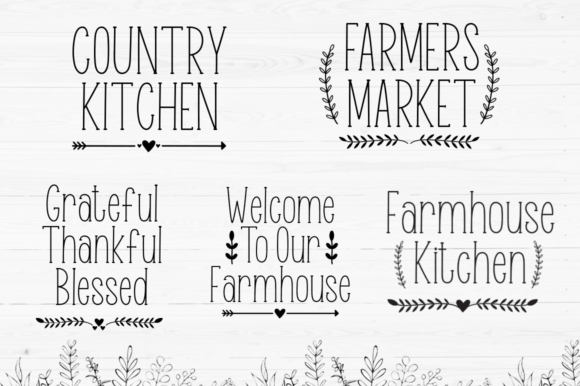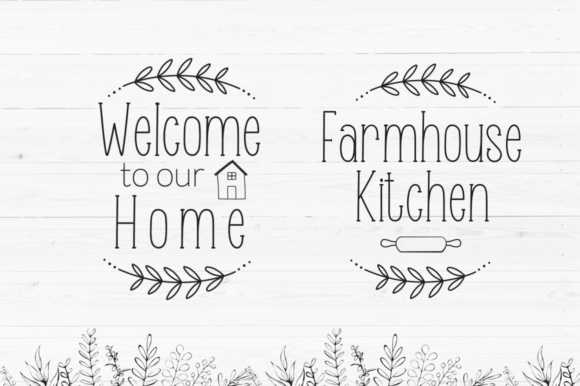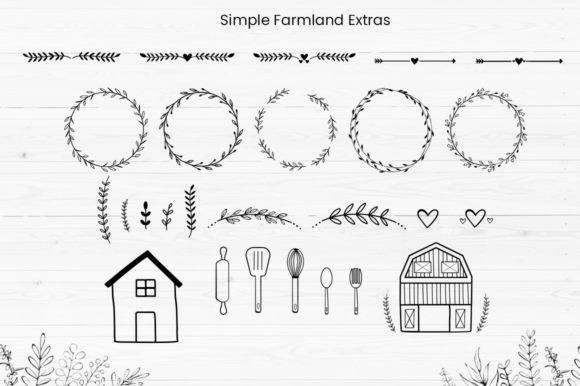
Simple Farmland is a tall serif font. Perfect font for Craft, invitations, logos, birthday invitations, and more.
This serif also works well when combined with script fonts.
You will also find doodles in this font family, perfect for craft needs such as stickers, vinyl, Cricut, and many others.